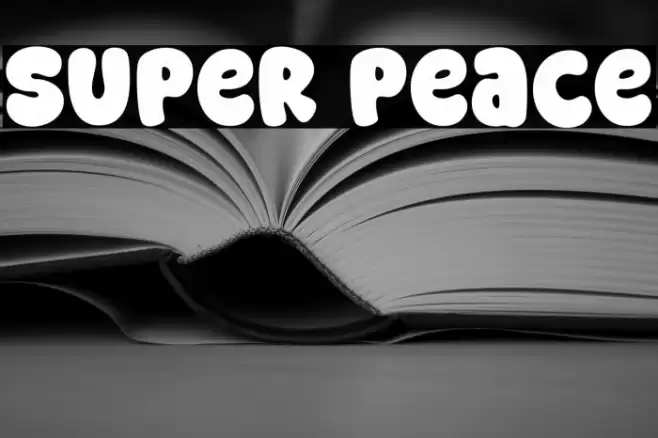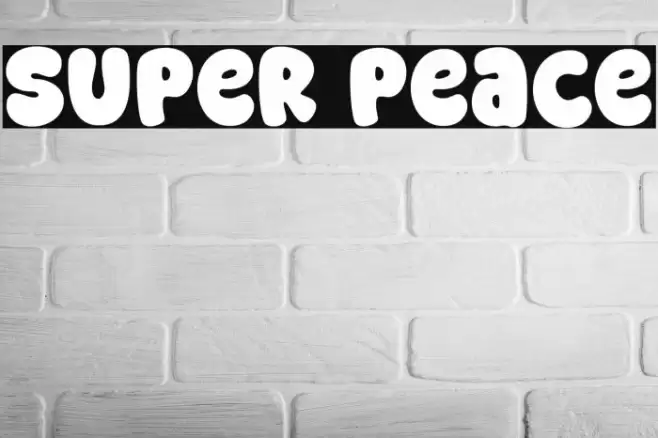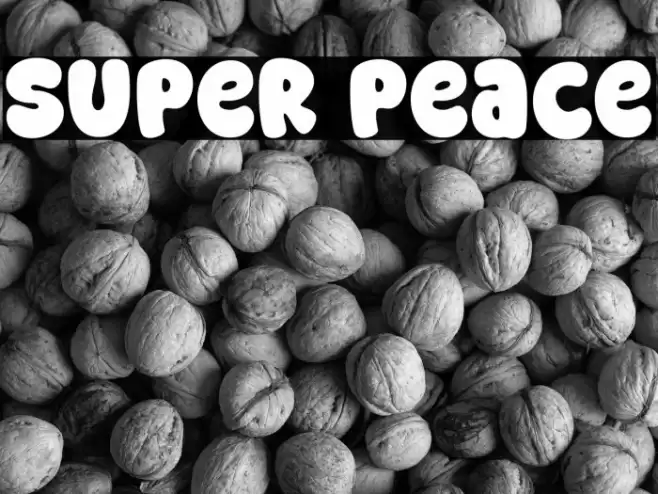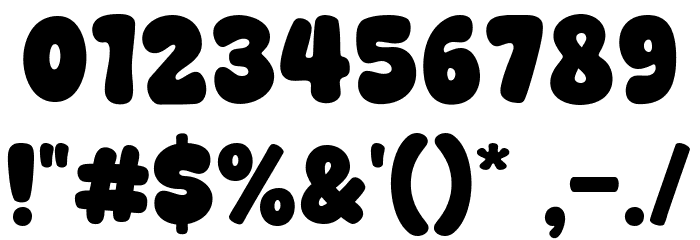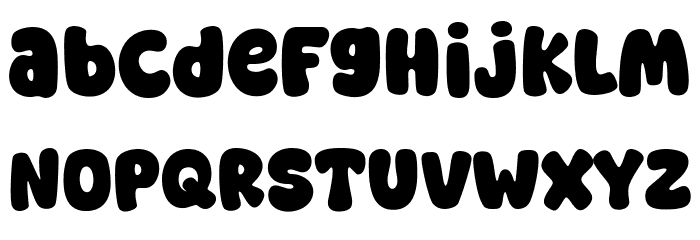
Super Peace Font
Super Peace Description
This font features a playful and bold design with rounded, bubbly characters that convey a sense of fun and approachability. The letters are thick and have a uniform stroke width, giving them a strong presence on the page. The overall style is reminiscent of retro or vintage designs, with a modern twist that makes it suitable for contemporary use. The characters are evenly spaced, providing a balanced and harmonious appearance. This font is particularly effective for creating eye-catching headlines, posters, and branding materials where a friendly and informal tone is desired.
A playful, bold font with rounded, bubbly characters ideal for fun and approachable designs from Uncategorized fonts.
- Font: Super Peace
- Proposed Projects: Ideal for children's books, playful branding, event posters, and any project requiring a fun and informal tone.
- Overall Style: Playful, Retro, Modern
- Use Case: Headlines, Posters, Branding